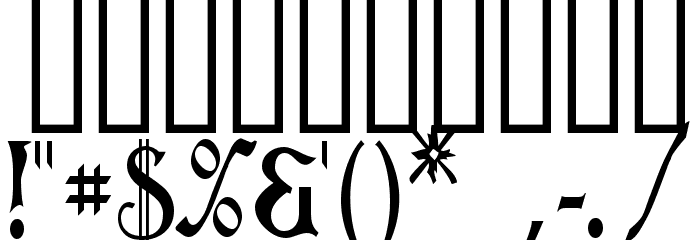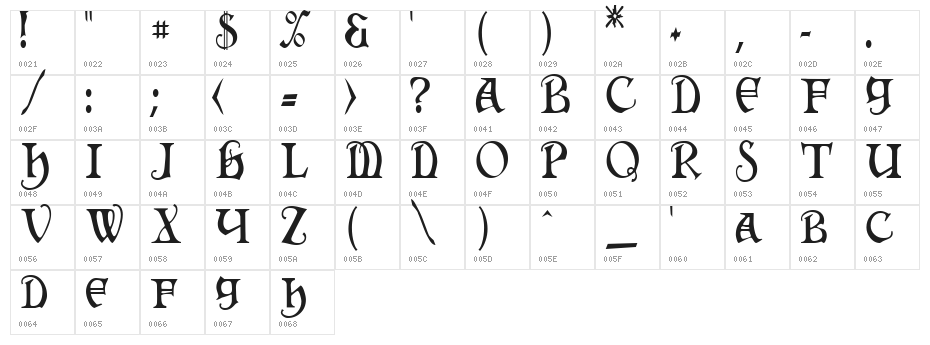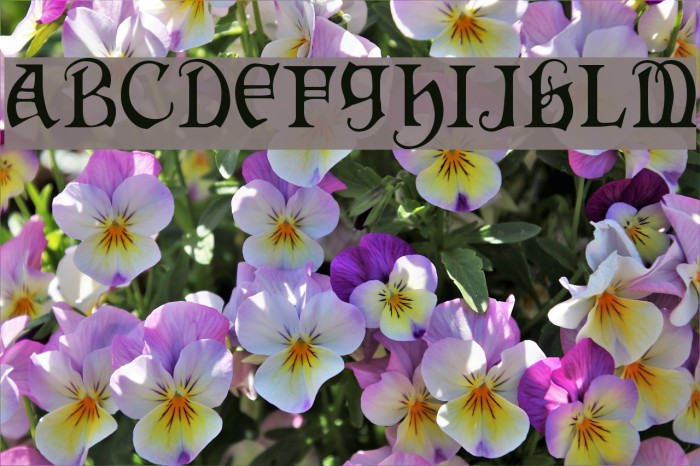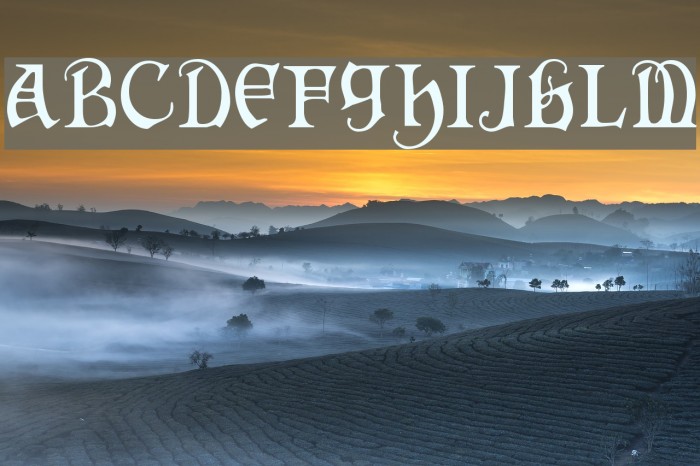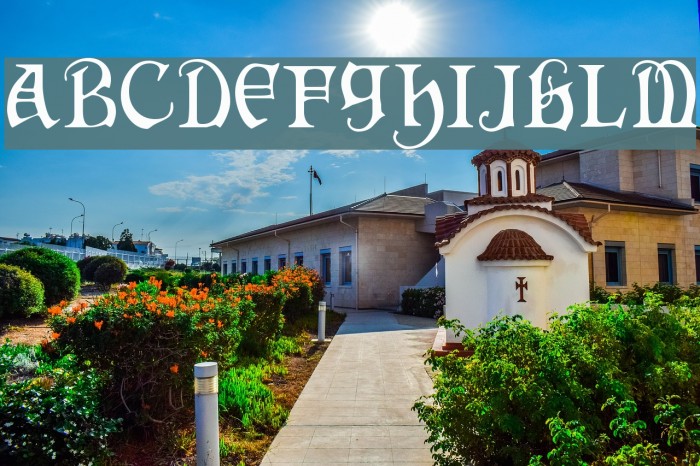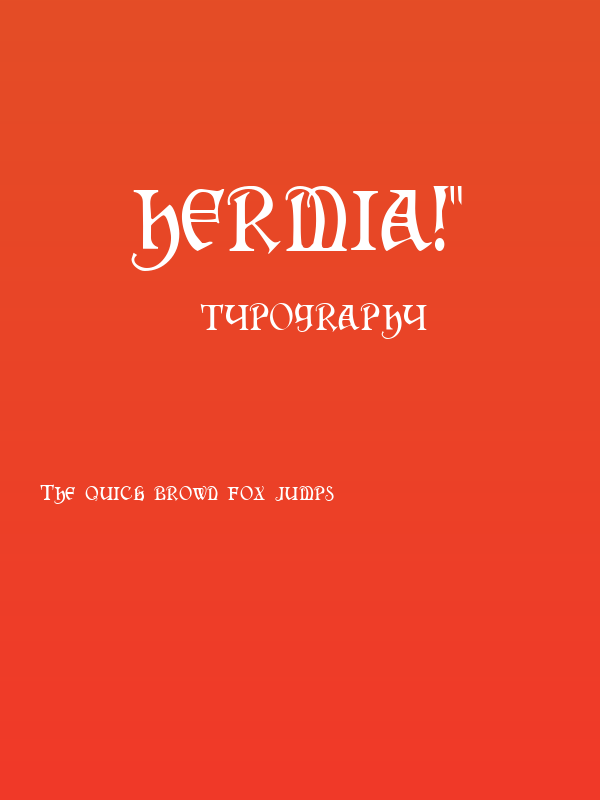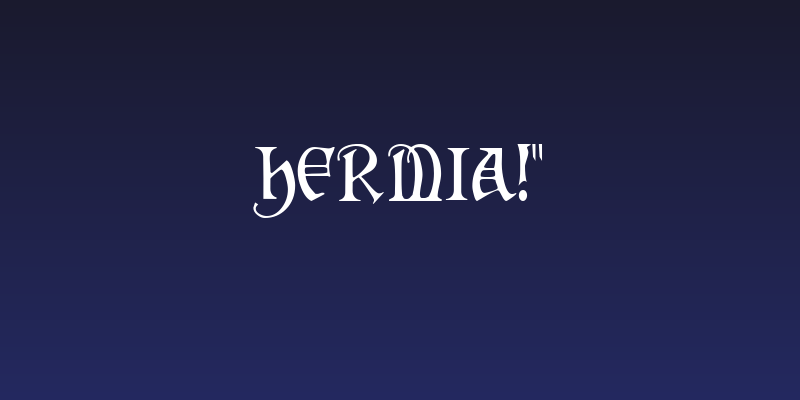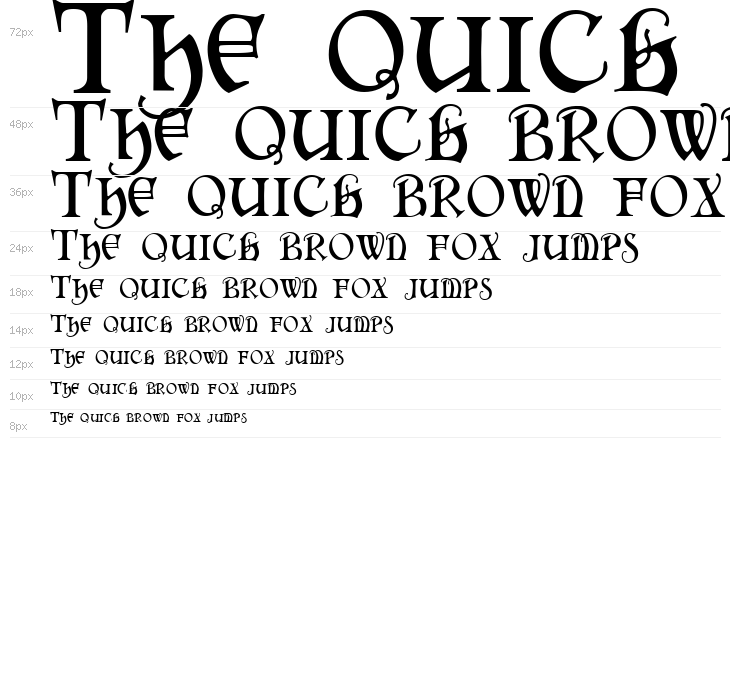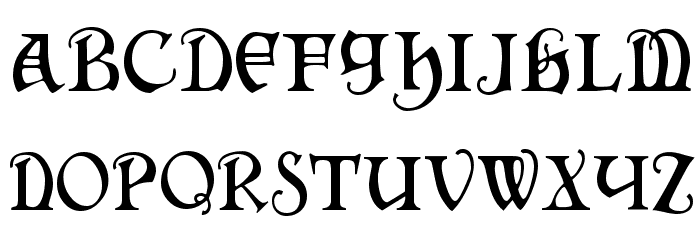
Hermia!" Font
Hermia!" Description
This font exhibits a distinctive and ornate style, characterized by its decorative and intricate letterforms. The uppercase letters feature elaborate curves and flourishes, giving them a medieval or gothic appearance. The lowercase letters maintain a consistent style, with similar embellishments that enhance their visual appeal. The numerals are bold and maintain the decorative theme, ensuring consistency across the character set. Special characters are equally ornate, fitting seamlessly with the overall design. This font's unique style makes it suitable for projects that require a touch of elegance and historical flair.
| Proposed Projects | Ideal for use in invitations, historical-themed projects, branding for luxury products, or any design requiring a classic and elegant touch. |